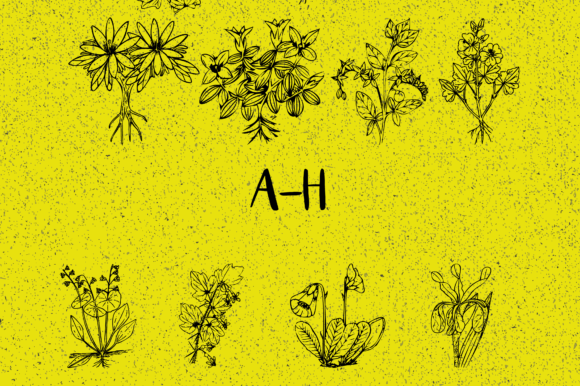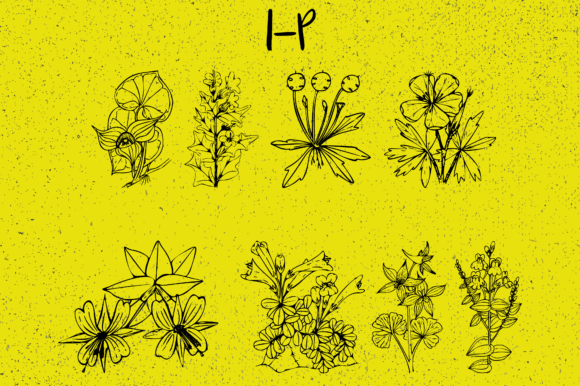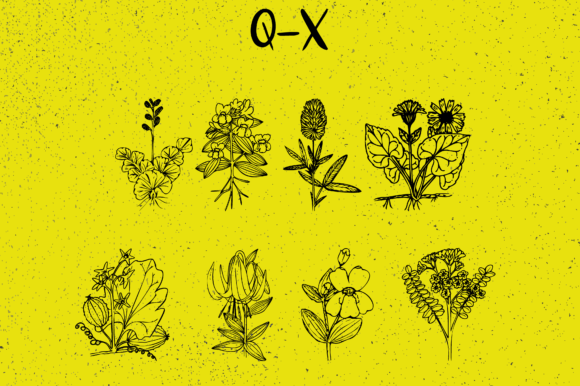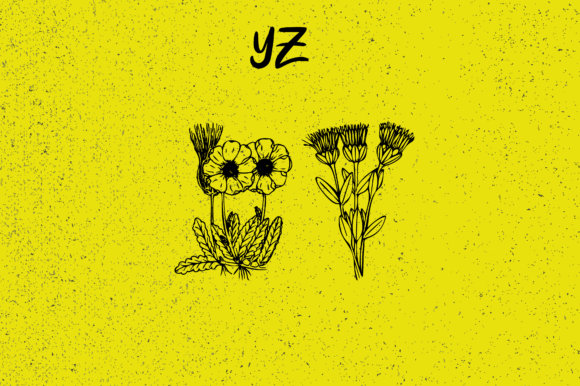
Plantic Font
About Plantic Font
Plantic is a delightful and adorable dingbat font designed to help you generate colorful and creative designs by typing capital and small letters as well as numbers. Its flower-inspired design makes it perfect for projects that need a fresh and floral vibe, with its many detailed and intricate images, the results will be nothing short of spectacular. Plantic is a versatile and intuitive font, making it easy to use for a wide range of projects, from designing delicate and lovely logos to adding a touch of freshness and charm to decorative patterns or gift-giving items.
One of the best things about Plantic is its beautiful and detailed design. The many flower-themed images make Plantic a unique and memorable font for projects that need a touch of freshness and a floral charm. Whether you’re designing a logo for a flower shop or adding a touch of nature to a decorative pattern or gift-giving item, Plantic will add a touch of style and personality to your design.
Another great thing about Plantic is how easy it is to use. With a few keystrokes, users can create a wide range of colorful and memorable designs. The many detailed and intricate flower-themed images make Plantic easy to read and use, while its versatile design makes it perfect for a wide range of projects. Both Plantic’s small and large fonts come with clear, concise instructions to help users get started quickly.
In addition to its versatile design and charming beauty, Plantic is also just great design. Its many flower-themed images set it apart from other dingbat fonts and make it a perfect option for projects that need a fresh and floral vibe. Whether you’re designing a logo for a flower shop or adding a touch of nature to a decorative pattern or gift-giving item, Plantic will add a touch of style and personality to your work.
Overall, Plantic is a fantastic and memorable font that can help you create colorful and creative designs. Whether you’re designing a logo for a flower shop or adding a touch of nature to a decorative pattern or gift-giving item, Plantic’s many flower-themed images make it an excellent option for projects that need a fresh and floral vibe. With its easy-to-use design and versatile possibilities, Plantic is a perfect choice for designers, artists, or small businesses that want to stand out in their designs.